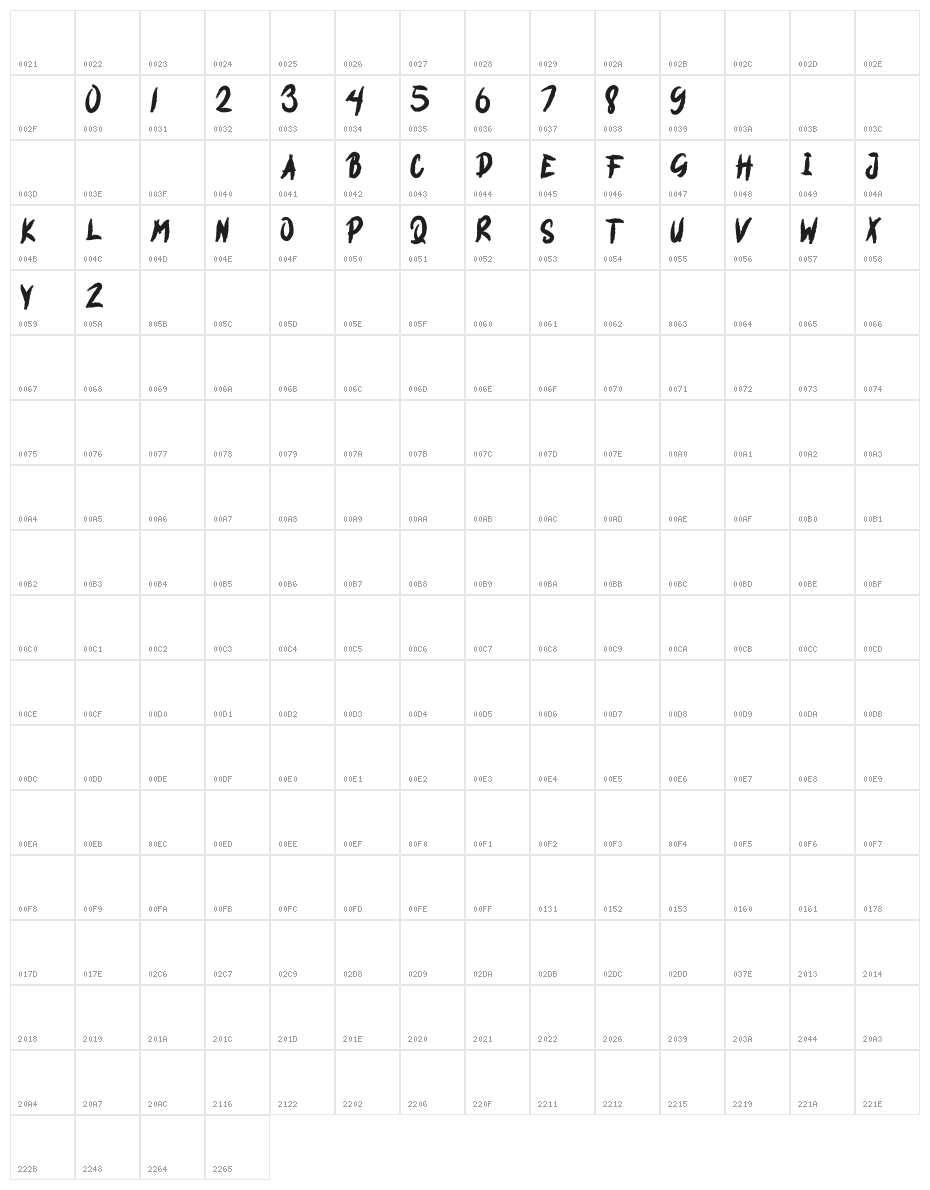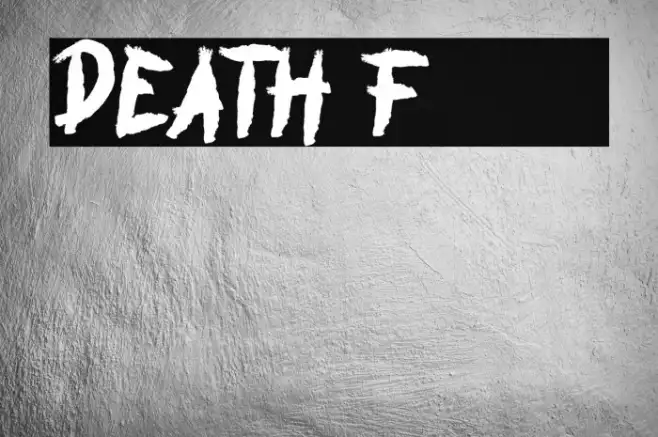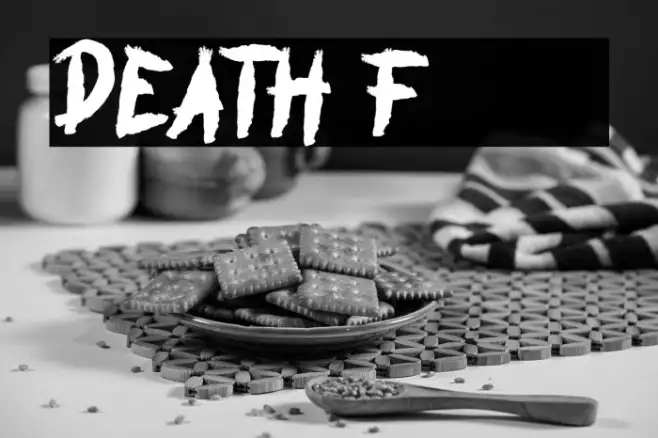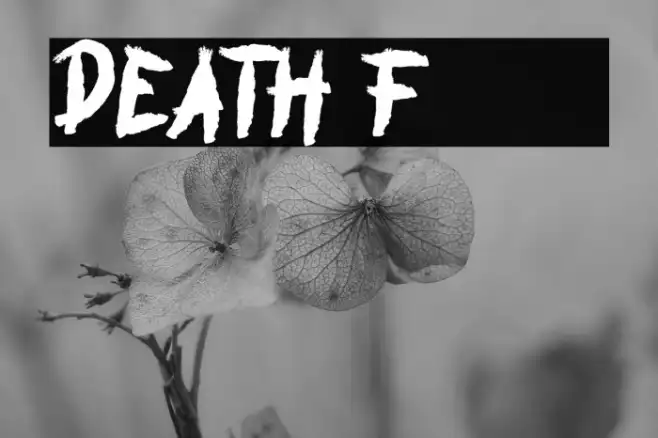
DEATH Font
DEATH Description
This font features a bold and expressive brush style, characterized by its dynamic and energetic strokes. The letters have a hand-painted appearance, with varying thicknesses that add a sense of movement and vitality. The uppercase letters are particularly striking, with a slightly irregular form that enhances the handcrafted feel. The numbers maintain the same boldness and style, ensuring consistency across different uses. This font's unique character makes it suitable for projects that require a personal and artistic touch.
| Proposed Projects | Ideal for posters, album covers, branding, and any creative project needing an artistic flair. |